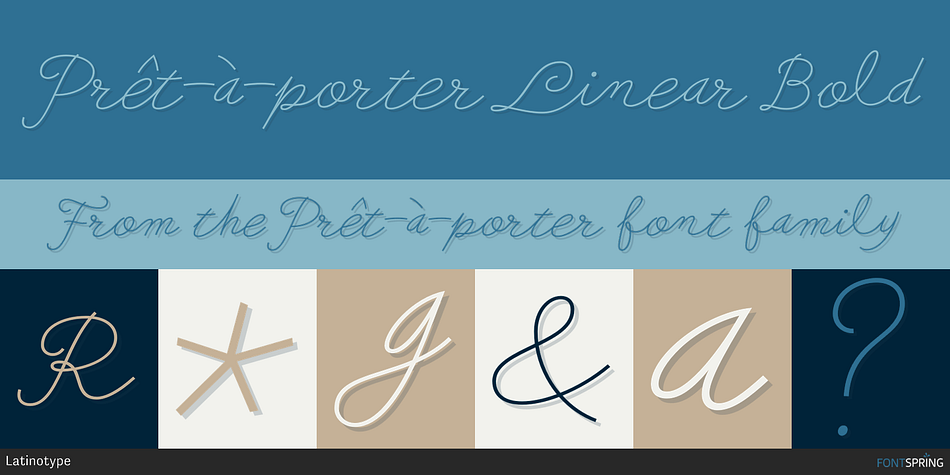
Prêt-à-porter Linear Bold
Designed by Juan Pablo De Gregorio, Prêt-à-porter is a multiple classification font family. This typeface has twenty-nine styles and was published by Latinotype.
Prêt-à-porter is a project developed as part of a series of type experiments appearing on the blog
Prêt-à-porter is a project developed as part of a series of type experiments appearing on the blog ‘Letritas’. Prêt-à-porter is a very expressive friendly font with a handwritten look, smooth curves and strong identity. Its counterforms make it a carefree, wild, cheerful, light and highly readable typeface.
This type system consists of two Script families-Contrast and Linear-and a Slab family. The Contrast set works as a complement, providing more elegance and formal refinement. Both Linear and Contrast come in 5 weights plus Ornaments, which can be used as initial and terminal forms since they have been designed for connecting with each letter.
Linear and Contrast families include ligatures and the whole font family supports 208 different languages.
Designer Juan Pablo de Gregorio